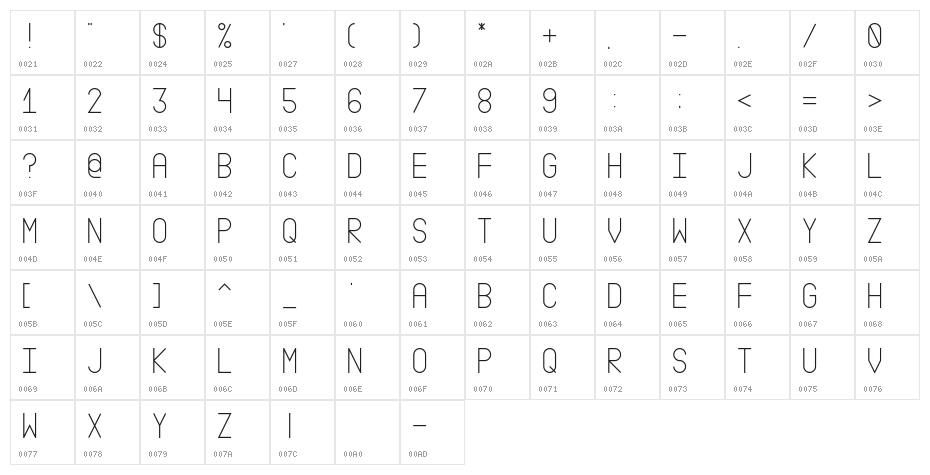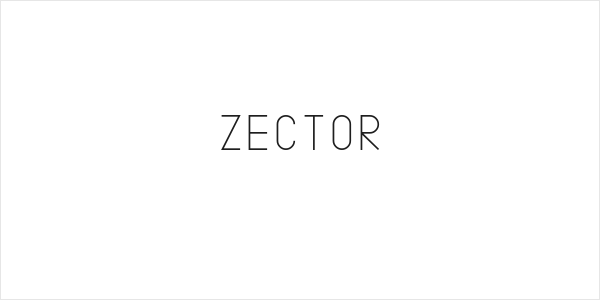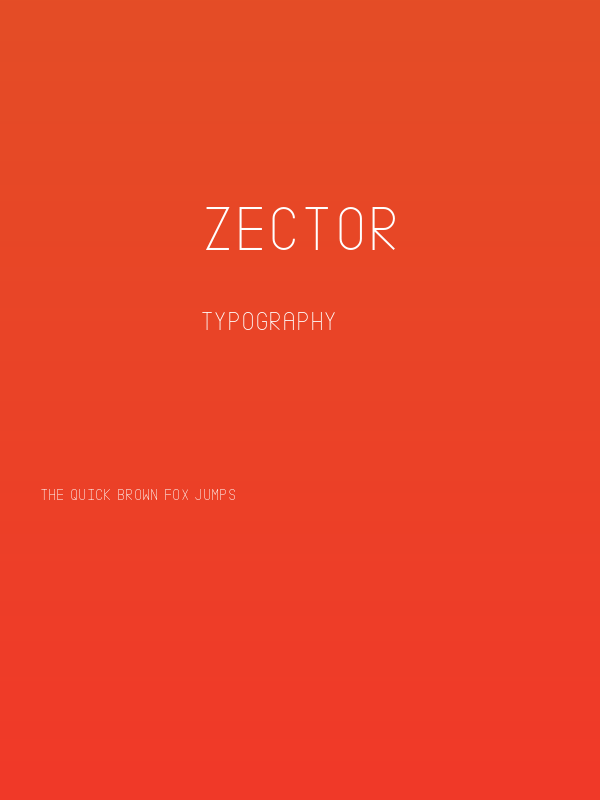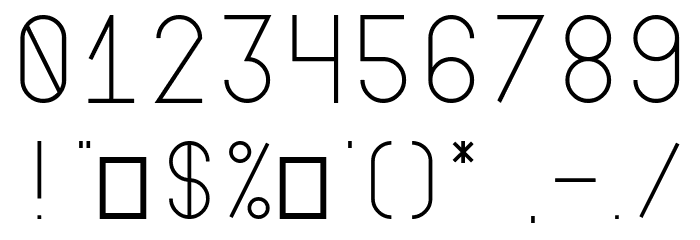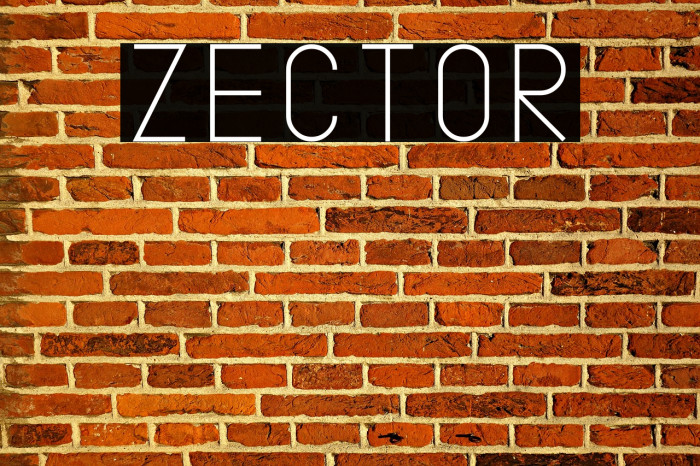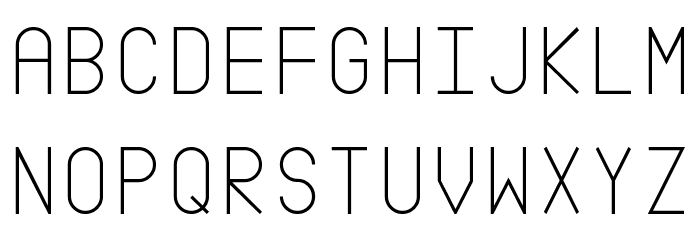
Zector Font
Zector Description
This font exhibits a modern, geometric style with a clean and minimalistic appearance. The characters are constructed with straight lines and precise angles, giving it a technical and futuristic feel. The uppercase and lowercase letters maintain a consistent height, contributing to a uniform look. The numerals are equally geometric, aligning well with the overall design. Special characters are included, maintaining the same linear and angular theme. This font is ideal for projects that require a sleek and contemporary aesthetic.
| Proposed Projects | Ideal for tech branding, modern web design, futuristic posters, and minimalist logos. |